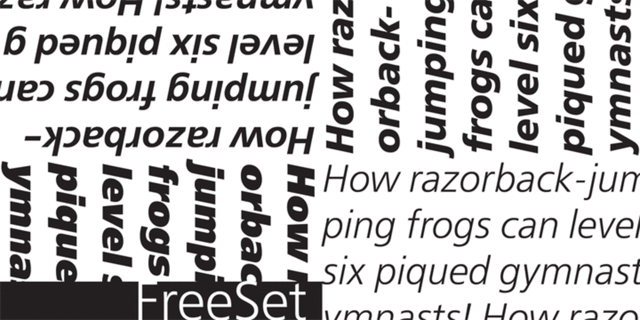
FreeSet (15 fonts)
The type family in four basic styles was designed in ParaType (ParaGraph) in 1992 by Tagir Safayev. Based on Frutiger, of Mergenthaler Linotype, 1976 by Adrian Frutiger. Frutiger font was originally designed for use on signs at the new Charles de Gaulle Airport at Roissy. The straightforward sans serif shapes are suited well for both text and display setting. Six additional styles of normal proportions and five condensed styles were designed in 1998-2020 by Tagir Safauev and Manvel Shmavonyan with participation of Vitaly Kuzmin, Isabella Chaeva, Alexander Lubovenko. Armenian alphabet in six styles was designed by Manvel Shmavonyan.
Associations for font family FreeSetTypeface personality and character:
delicate, clean, easy, chilly, fresh, fashionable, confidence, available, comfortable, urban, strict, simple, globalized, globalistic, clear, serious, self-assured, stable, convincing, solid, motivating, resolute, strong, heavy, powerful, notable, bright, active, splashy, ambitious, important
society, city, transport, airport, Metro, perfumery, lotion, beauty, Eau de Toilette, shampoo, cosmetics, fashion, navigation, medicines, barbershop, diet, design, hygiene, purity, coworking, water, bus, pharmacy, news, policy, equipment, tool, building, repairs, mechanical engineering, factory, industry, machine tool, fitness equipment, Freight, truck, trucker, logistics Typeface exhibits stylistic traits: